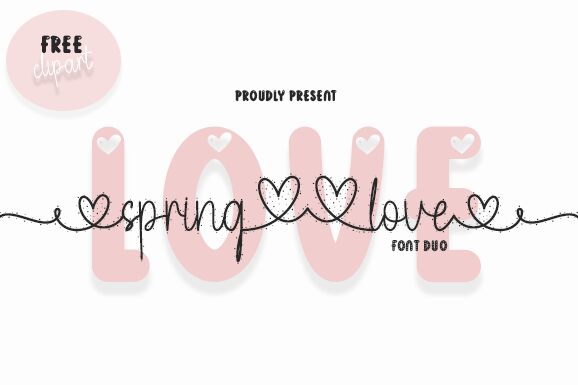
Springlove
Springlove, the extra-light handwritten font by Fillo Graphic, exudes a whimsical and romantic vibe perfect for projects that require a personal touch. Its delicate strokes add an airy and graceful feel to wedding invitations, love letters, and other heartfelt messages. The thin lines of the font make it ideal for elegant designs for fashion magazines or lifestyle blogs. Springlove's charming style also works well with branding and packaging designs that cater to feminine audiences. With its unique personality and versatility, Springlove is the perfect font choice for creatives seeking to add a touch of tenderness to their projects.